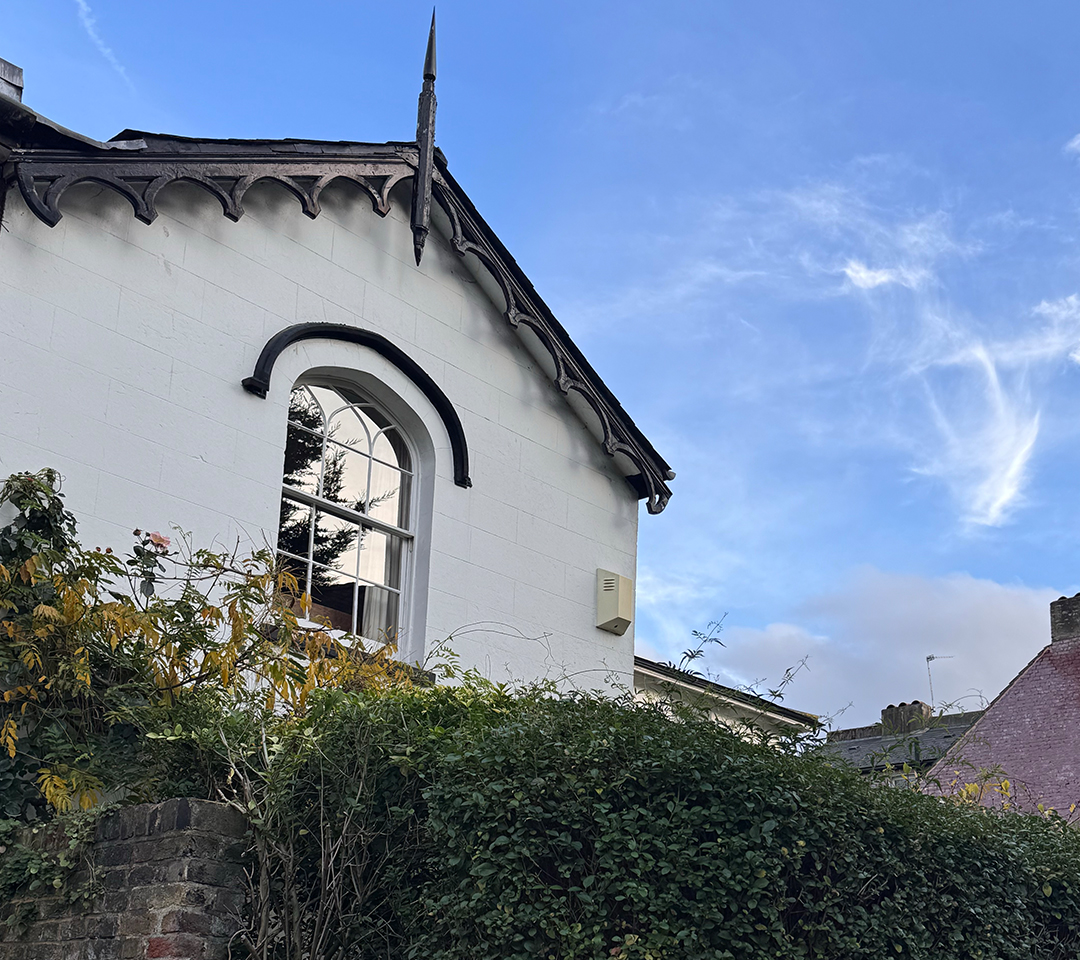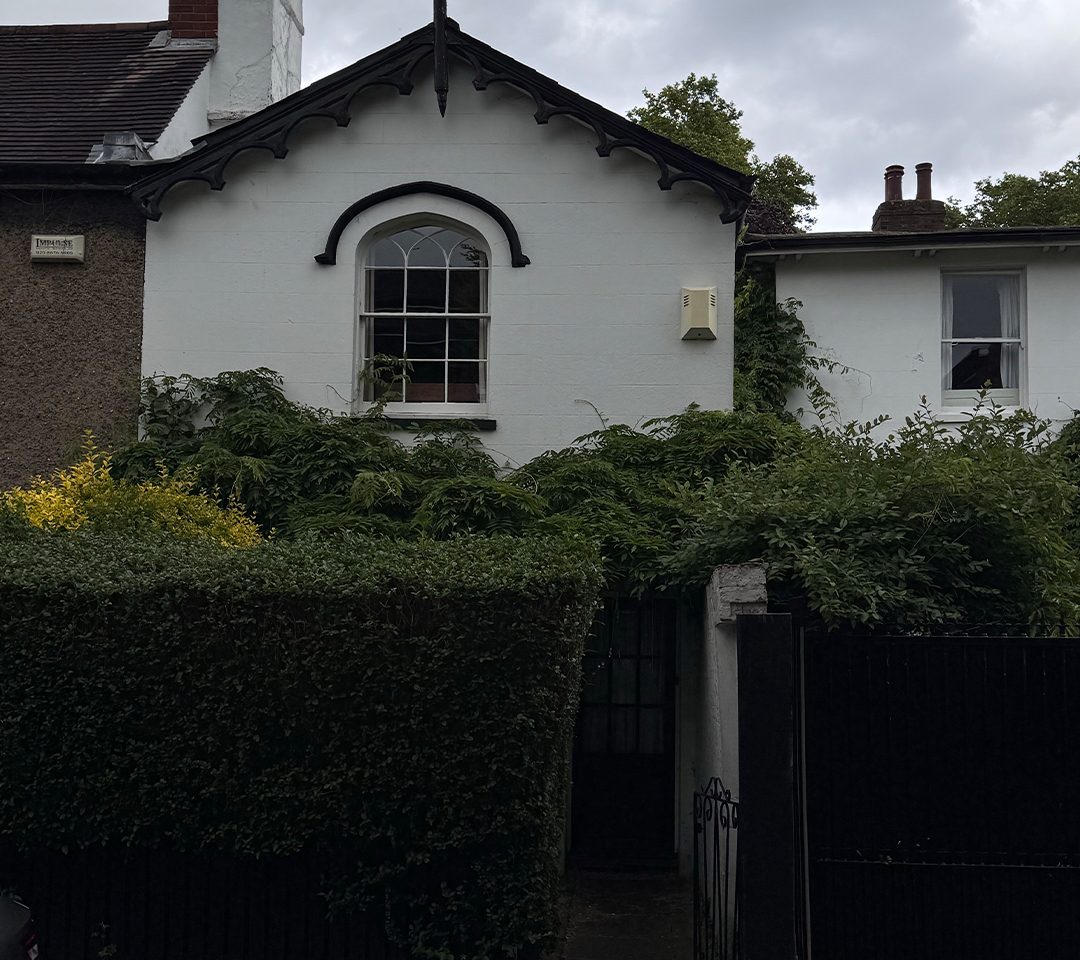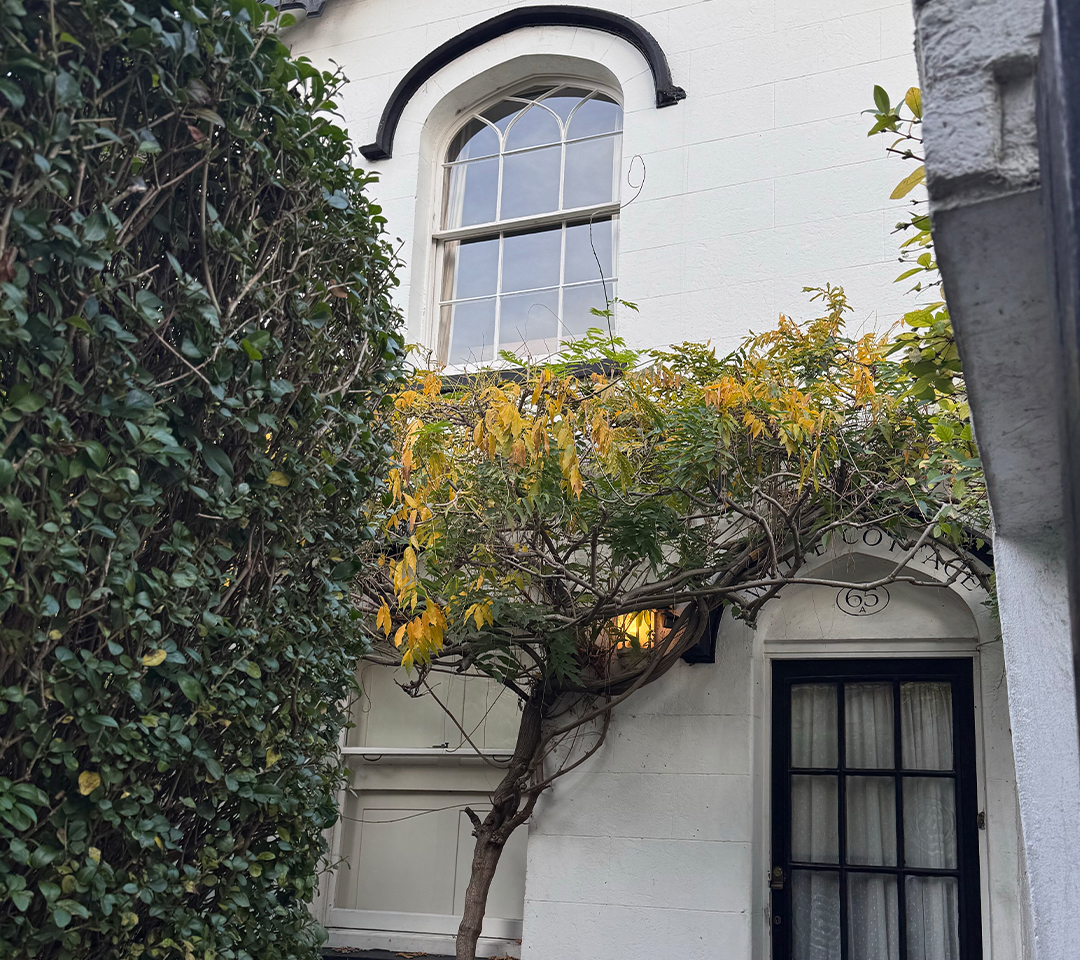
Mullions is a display typeface based on the structure of the Gothic-inspired window of the White Cottage. Its letterforms are found within the window structure and particularly in its vertical, horizontal and arched mullions. The main focus of this type's design is readability as well as consistency across the typeface, using window as a fixed system for constructing each letter, number and symbol. This grid-based approach creates harmony and repetition within the typeface, while the curved arches soften the structure. The contrast between rigid geometry and softer forms gives the typeface its unique character.